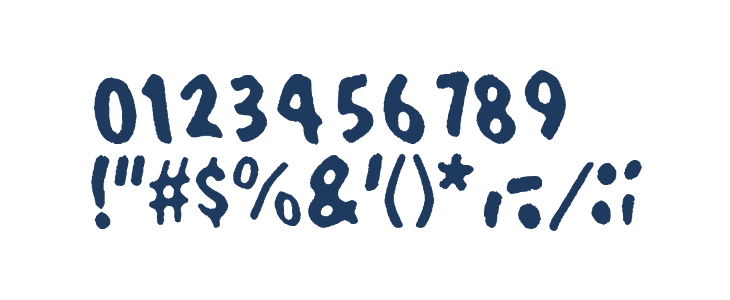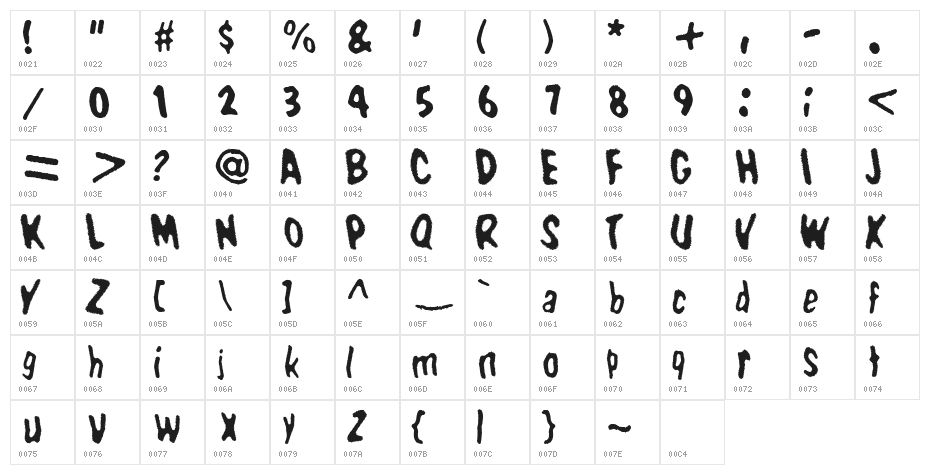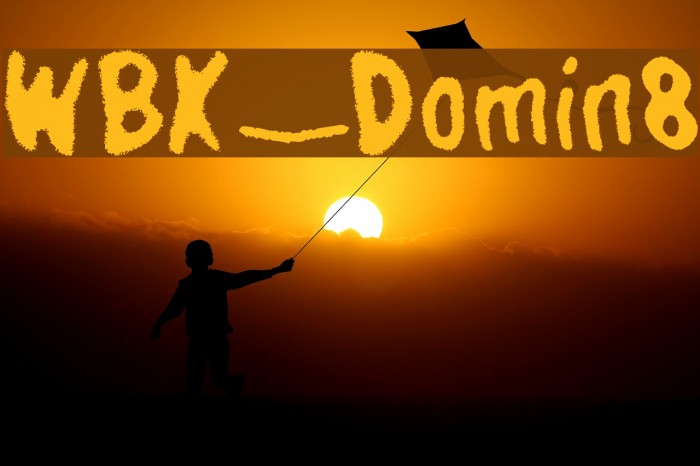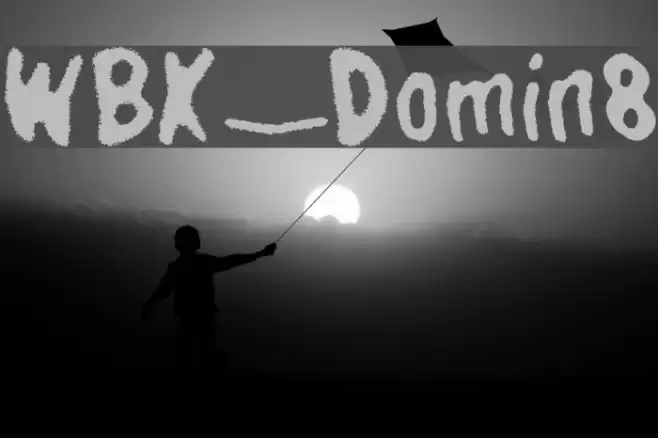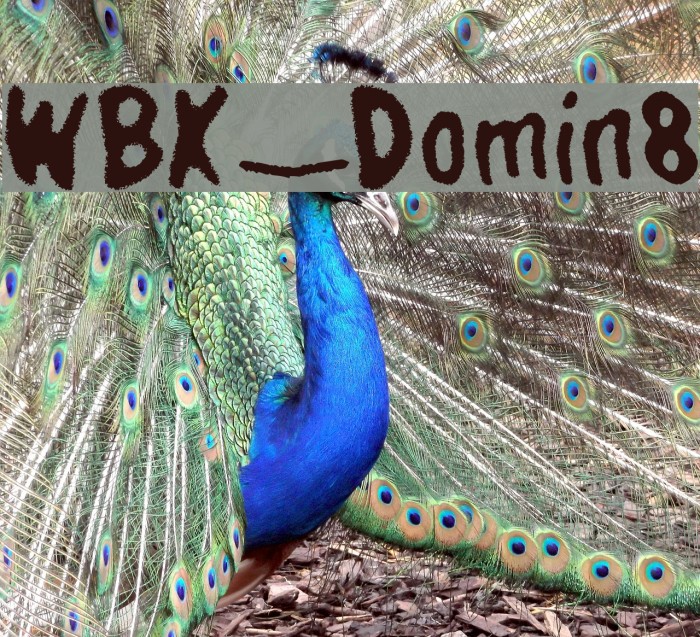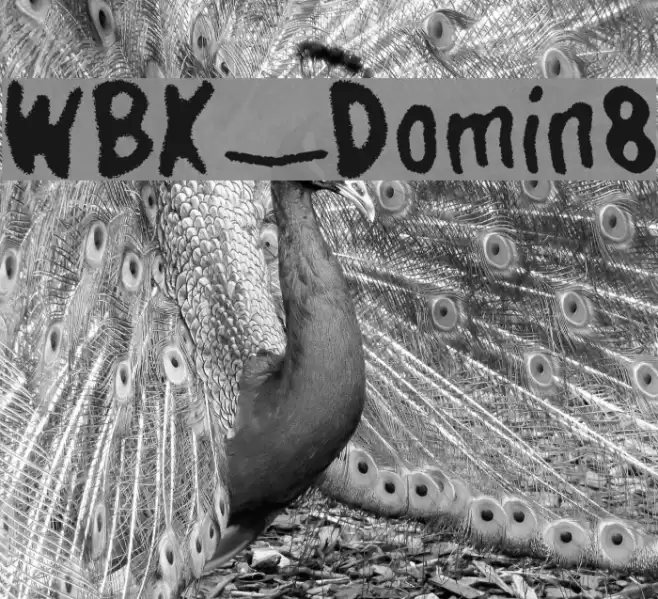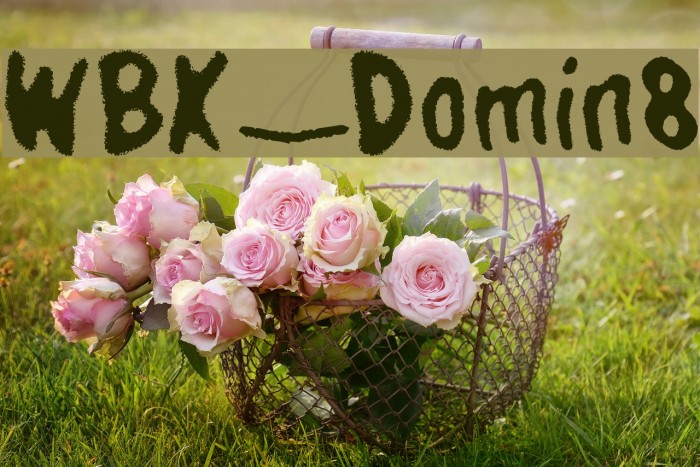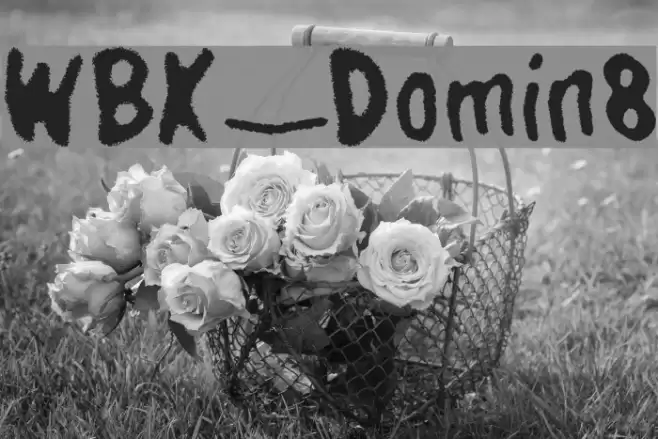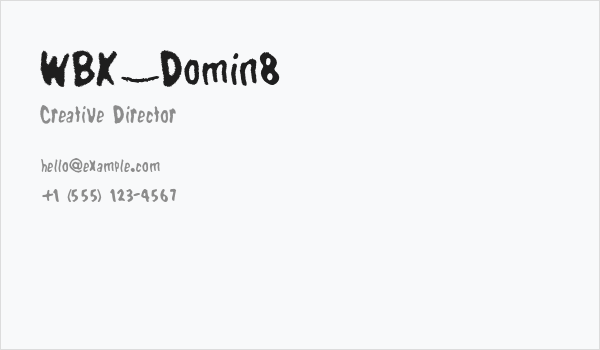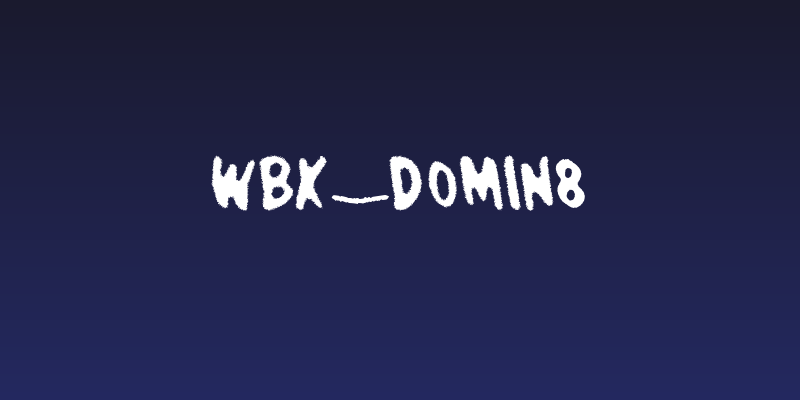
WBX_Domin8 Font
WBX_Domin8 Description
This font features a bold and playful design with a hand-drawn aesthetic. The characters have a rough, textured appearance, giving them a dynamic and energetic feel. The uppercase and lowercase letters maintain a consistent style, with rounded edges and irregular shapes that add to the whimsical nature of the font. Numbers and special characters are included, matching the overall style with their bold and slightly uneven forms. This font is ideal for projects that require a fun and informal touch, such as children's books, posters, or creative branding materials.
| Overall Style | Playful, Hand-drawn, Energetic |
| Use Case | Headlines, Posters, Creative Branding |
| Proposed Projects | Children's books, playful posters, creative branding, informal invitations. |